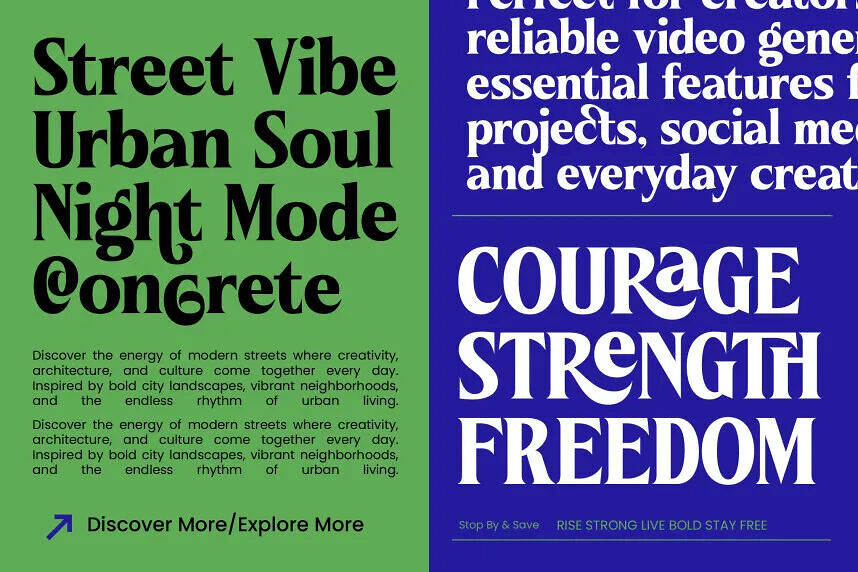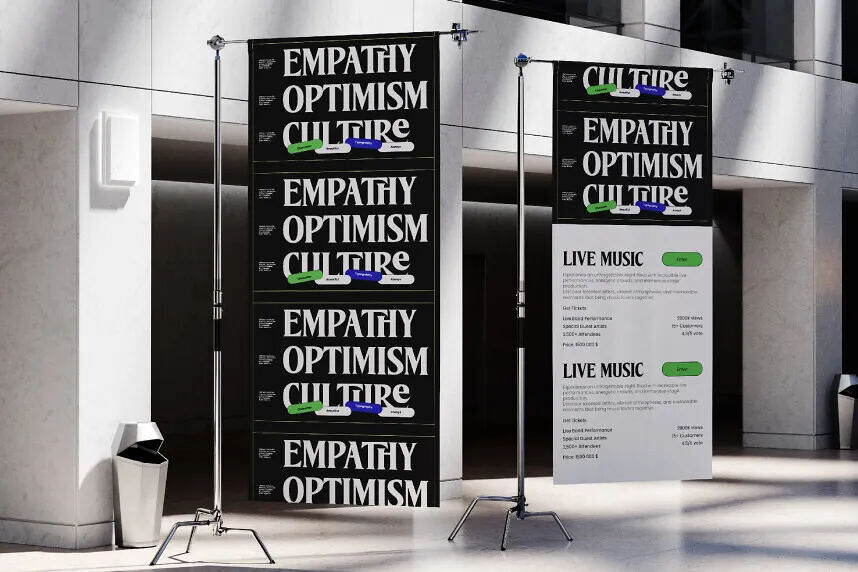
Brengthe Font
Brengthe is a sophisticated serif font that blends classic proportions with modern style. It’s perfect for luxury branding, high-end design, and premium packaging, making a lasting impression with its bold letterforms. With multilingual support and customizable features, Brengthe is versatile and legible, ideal for global projects and professional designs that require a timeless, premium look.